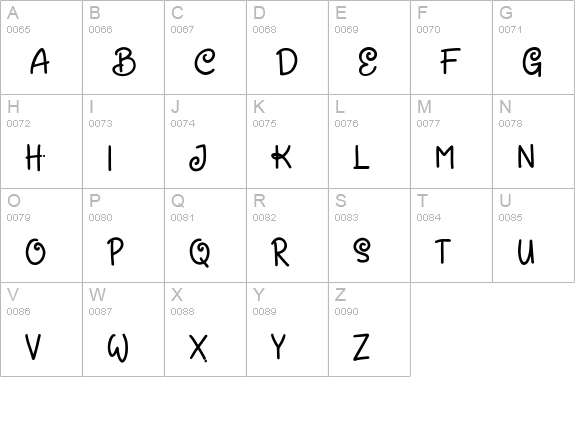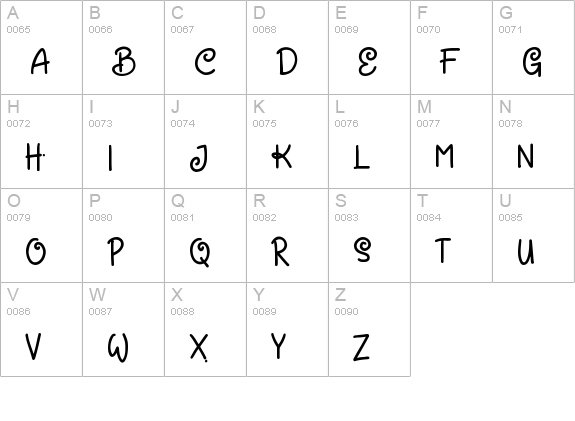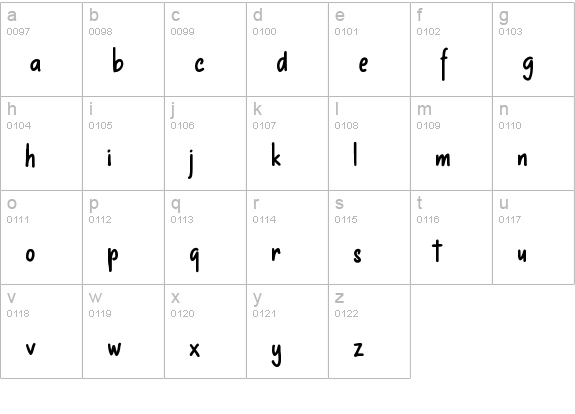
Chillgangs Font Details
Introducing Chillgangs font, a stylish and versatile typeface that exudes a cool and laid-back vibe. With its sleek lines and modern design, Chillgangs is perfect for a variety of creative projects, from branding to social media graphics.